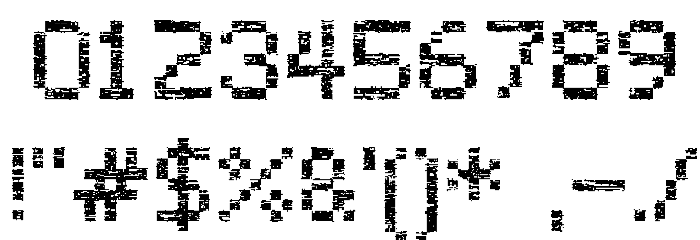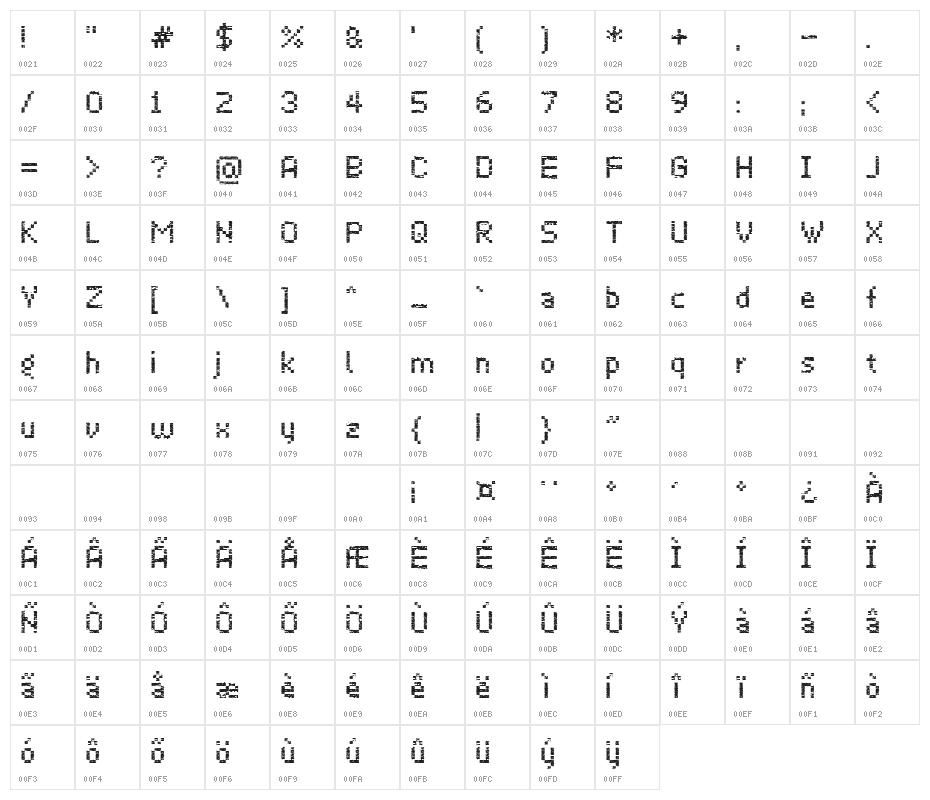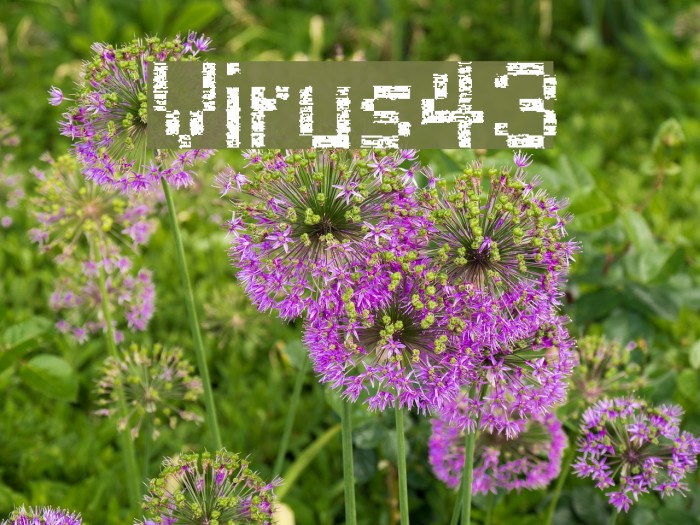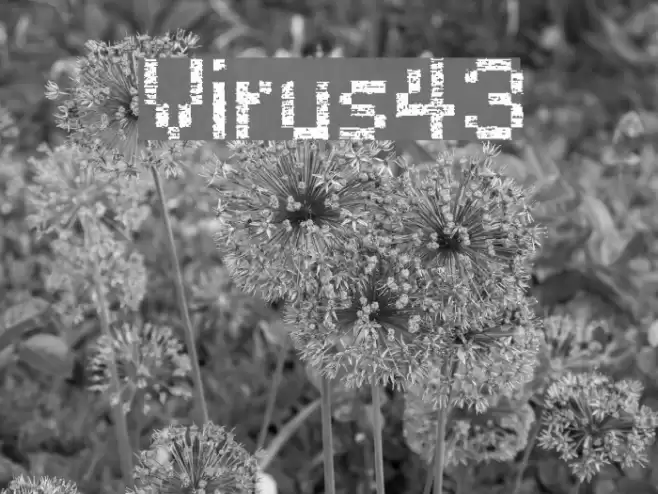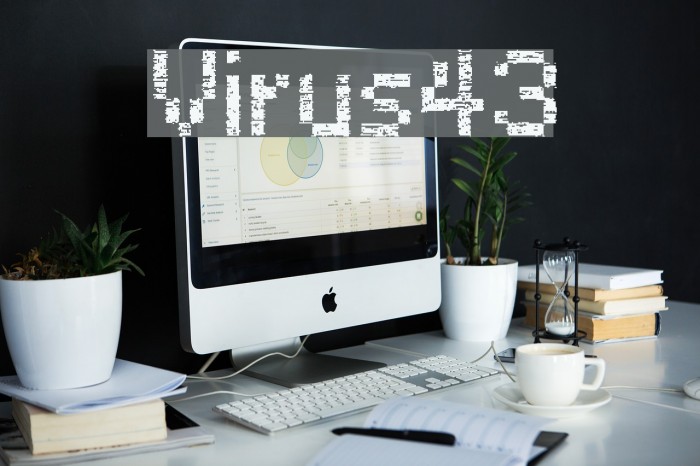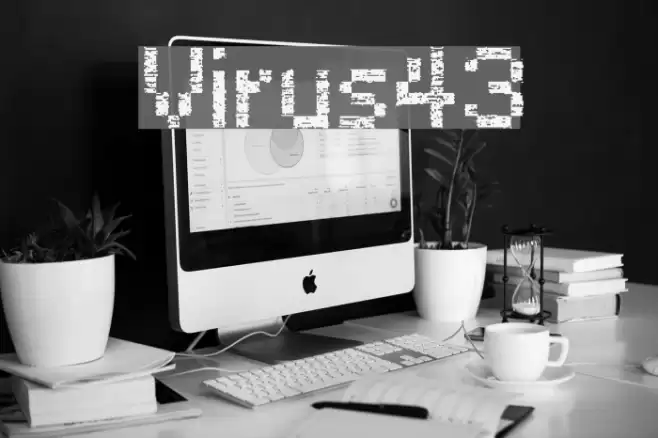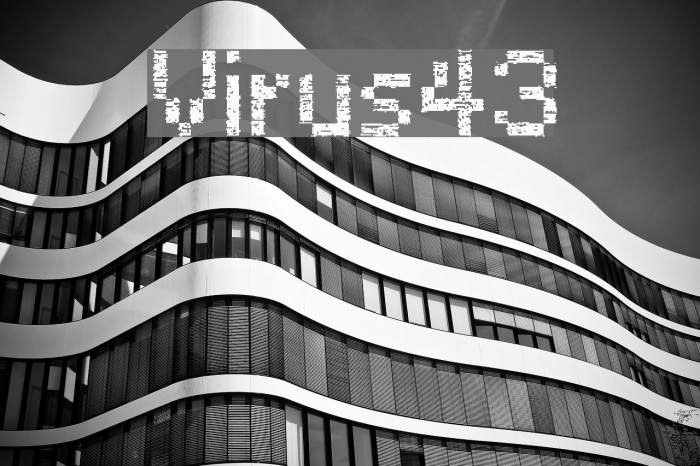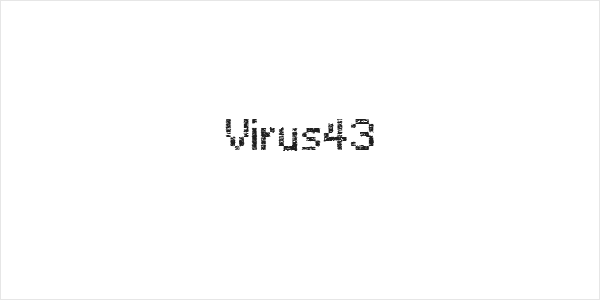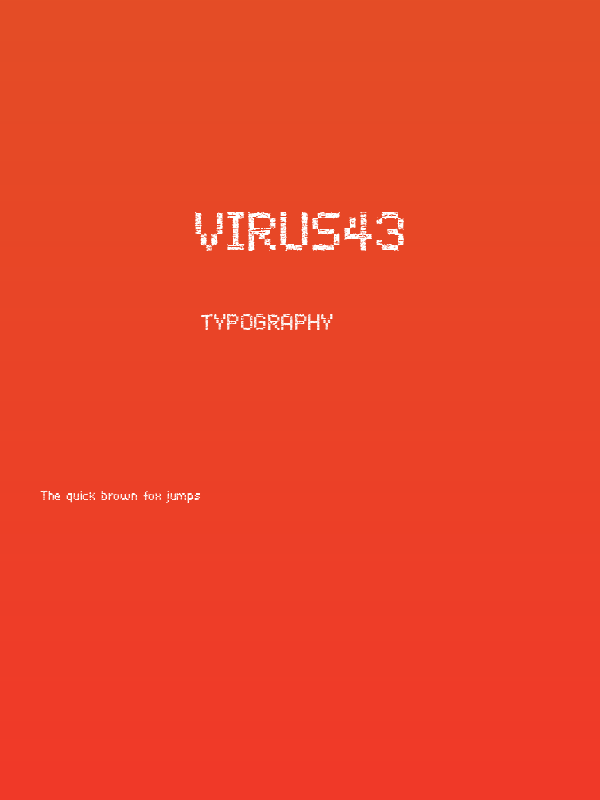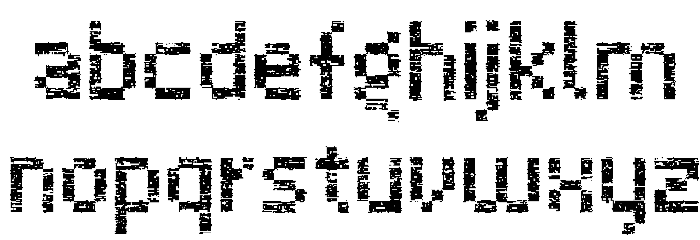
Virus43 Font
Virus43 Description
This font features a distinctive, pixelated style that gives it a digital, glitch-like appearance. The characters are bold and blocky, with irregular edges that create a textured effect reminiscent of digital noise or static. The uppercase and lowercase letters maintain a consistent height, contributing to a uniform look across the alphabet. Numbers and special characters follow the same design principles, ensuring a cohesive appearance throughout. The font's unique aesthetic makes it suitable for projects that require a modern, tech-inspired look.
| Proposed Projects | Ideal for digital art, tech-themed designs, video game graphics, and posters. |